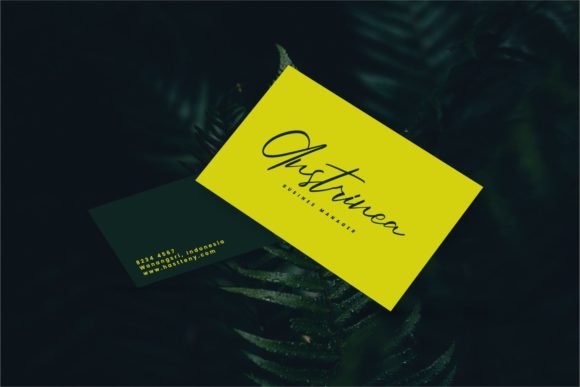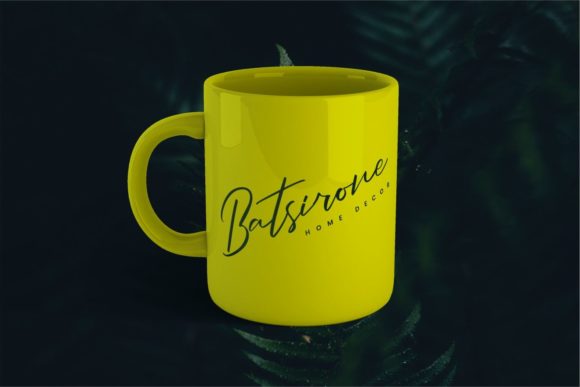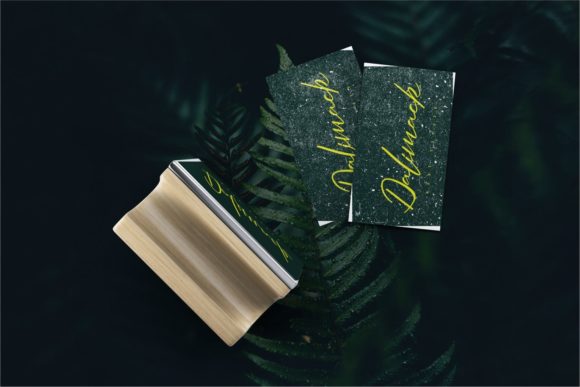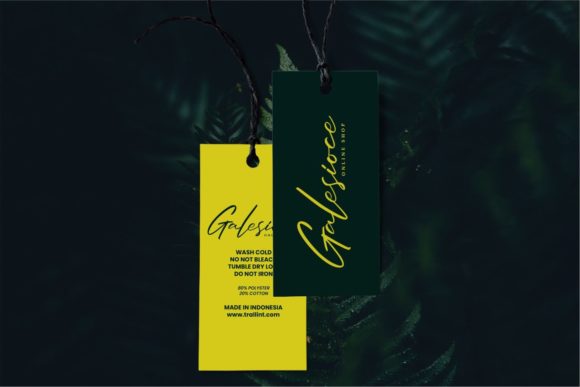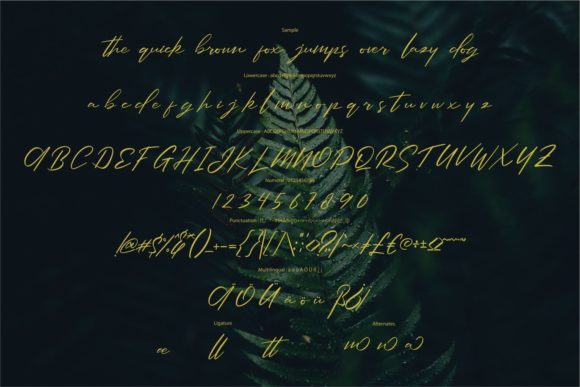
Introducing Amllisen Font: Elevate Your Designs with Elegance and Sophistication
In the world of typography, fonts play a crucial role in conveying the tone and personality of a design. For designers and crafters seeking to add a touch of elegance and sophistication to their work, Amllisen Font is an exceptional choice. This stylish and incredibly elegant script font is perfect for a variety of design projects, including wedding invitations, thank you cards, quotes, greeting cards, logos, business cards, and more.
The Beauty of Amllisen Font
Amllisen Font boasts a unique and captivating aesthetic that is sure to leave a lasting impression. Its elegant script style, characterized by flowing lines and delicate curves, adds a touch of refinement and luxury to any design. The font’s sophisticated appearance makes it an ideal choice for designers and crafters who want to create visually stunning and high-end designs.
One of the standout features of Amllisen Font is its versatility. This font can be used across a wide range of design projects, from formal events like weddings and galas to everyday applications such as branding, packaging, and social media graphics. Whether you’re creating a romantic wedding invitation or a professional business card, Amllisen Font is sure to elevate your design and make it stand out.
Wedding designers and event planners, rejoice! Amllisen Font is a dream come true for creating beautiful and memorable wedding invitations, save-the-date cards, and other event-related materials. Its elegant and sophisticated style perfectly captures the romance and joy of special occasions, making it an excellent choice for:
• Wedding invitations and save-the-date cards
• Thank you cards and RSVP cards
• Wedding programs and menus
• Event posters and flyers
Ideal for Branding and Marketing Materials
Amllisen Font is not just limited to event designs; it’s also perfect for creating stunning branding and marketing materials. Use it to add a touch of elegance and sophistication to:
• Logos and business cards
• Brochures and flyers
• Packaging and labels
Tips for Using Amllisen Font
In conclusion, Amllisen Font is a stylish and elegant script font that is sure to elevate your designs and take them to the next level. Its versatility, sophistication, and beauty make it an excellent choice for designers and crafters seeking to create stunning and memorable designs. Whether you’re working on a wedding invitation, business card, or branding project, Amllisen Font is the perfect choice for adding a touch of elegance and sophistication.